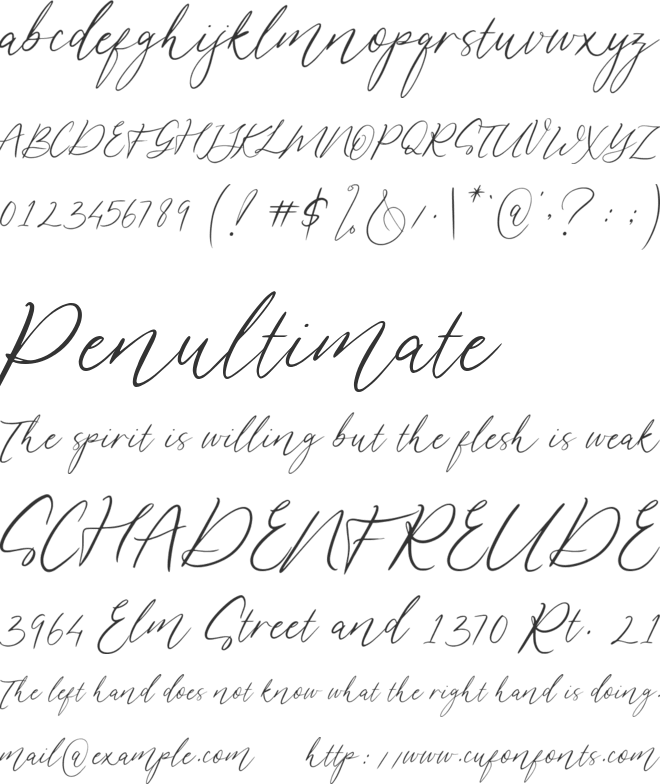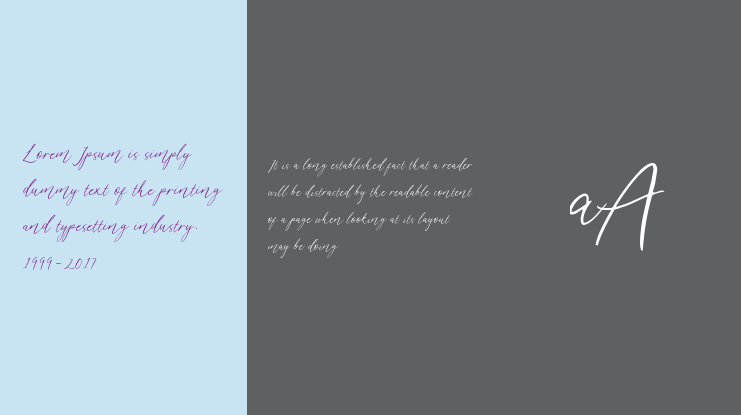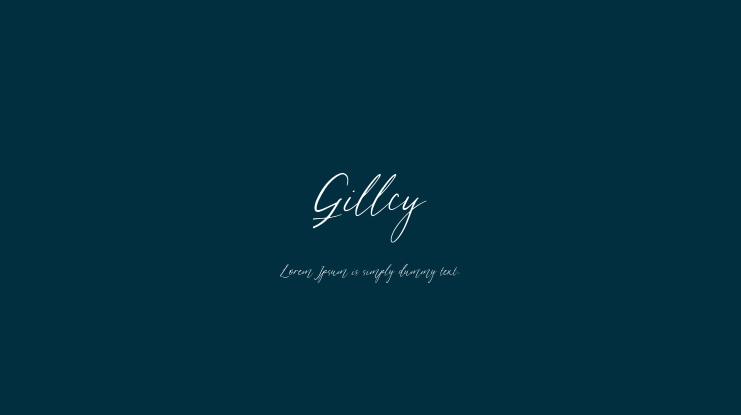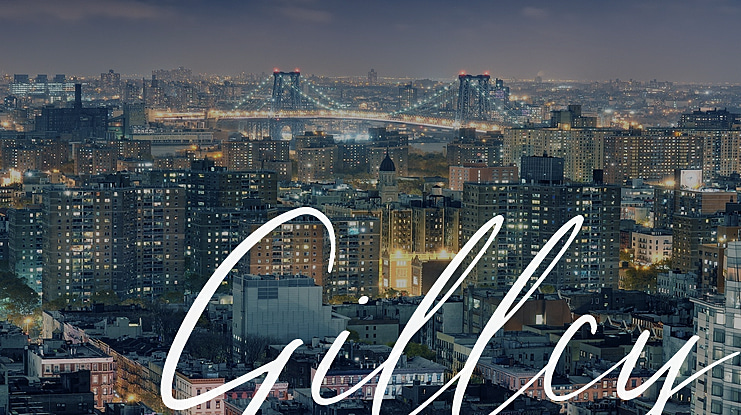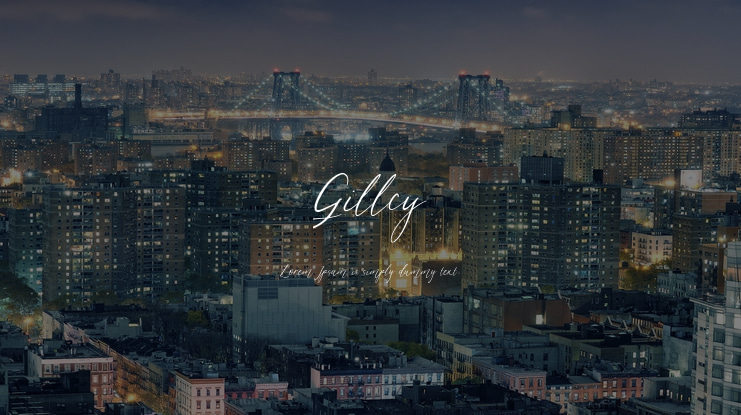
Gillcy Font
Gillcy is a Modern script font with a beautiful shape and natural on each character comes with unique alternative glyphs and has multilingual support. Gillcy it's a very unique font that works great in large sizes with any background colors. Gillcy is perfect for Wedding invitations, Magazine Headlines, Branding Projects, Prints, labels, Price Tags, Clothing & Fashion Branding. Just open your Opentype features while using the script font to use the ligatures and swashes. As you type, your text will look like a natural and authentic script.